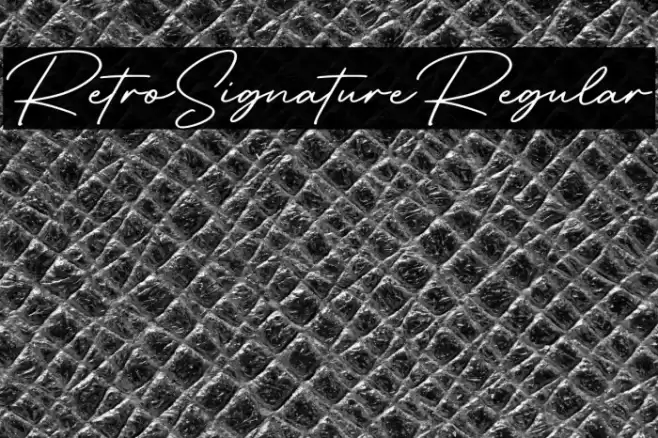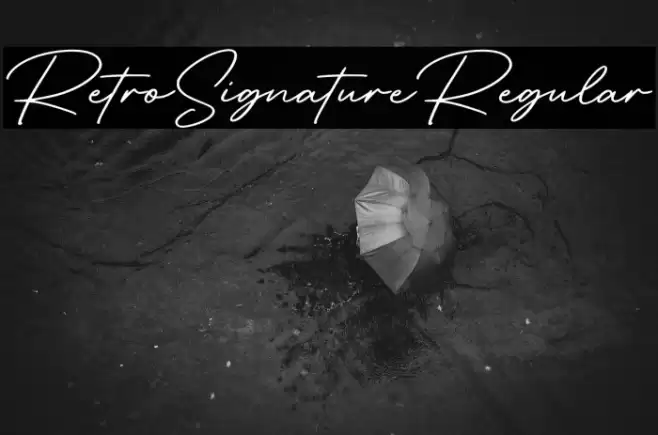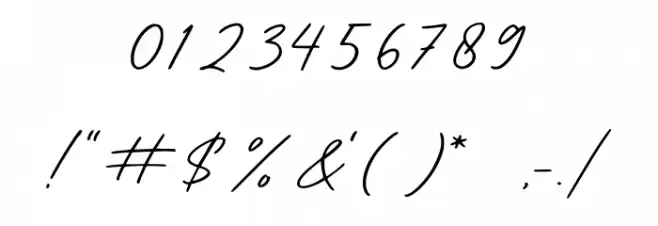
RetroSignatureRegular Font
RetroSignatureRegular Description
This font exudes a classic and elegant handwritten style, reminiscent of vintage signatures. The uppercase letters are tall and slender, with a slight slant that adds a dynamic flow to the text. The lowercase letters are more fluid and connected, creating a seamless cursive appearance. Numbers and special characters maintain the same graceful aesthetic, ensuring consistency across all text elements. The overall design is sophisticated and timeless, making it suitable for projects that require a touch of elegance and personal flair.
A classic, elegant handwritten font with a vintage signature style from Regular fonts.
- Proposed Projects: Ideal for wedding invitations, personal branding, elegant stationery, and vintage-themed designs.
- Overall Style: Vintage
- Use Case: Logos, Invitations, Personal Branding